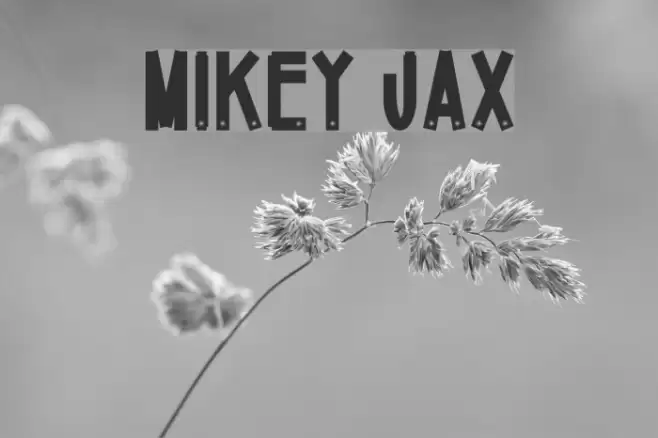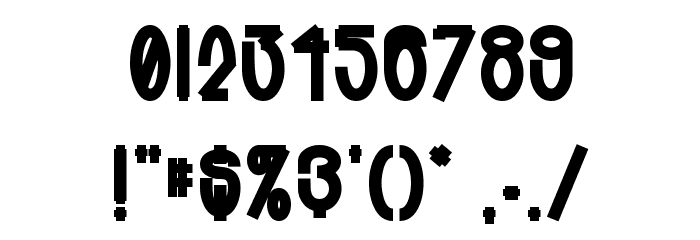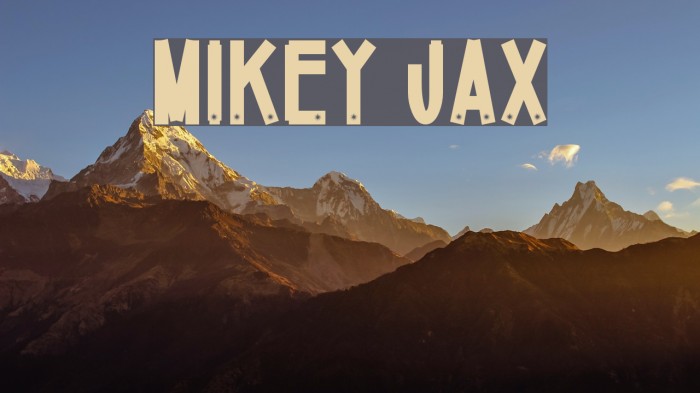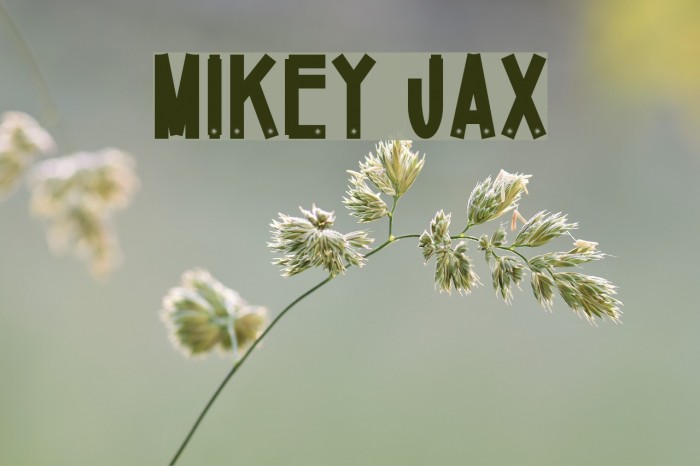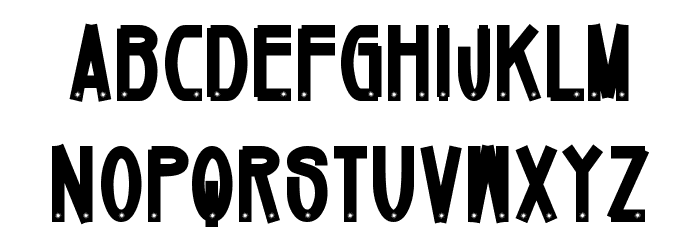
Mikey Jax Font
Mikey Jax Description
This font features a bold, decorative style with unique cut-out elements that give it a playful and edgy appearance. The uppercase letters are particularly striking, with sharp angles and a strong presence. The lowercase letters maintain the same boldness, ensuring consistency across text. Numbers and special characters are designed to match the overall aesthetic, making them suitable for attention-grabbing designs. The font's distinct style is perfect for projects that require a bold statement, such as posters, logos, and headlines.
A bold, decorative font with unique cut-out elements for a playful and edgy look from Decorative fonts.
- Proposed Projects: Ideal for posters, logos, headlines, and any design needing a bold statement.